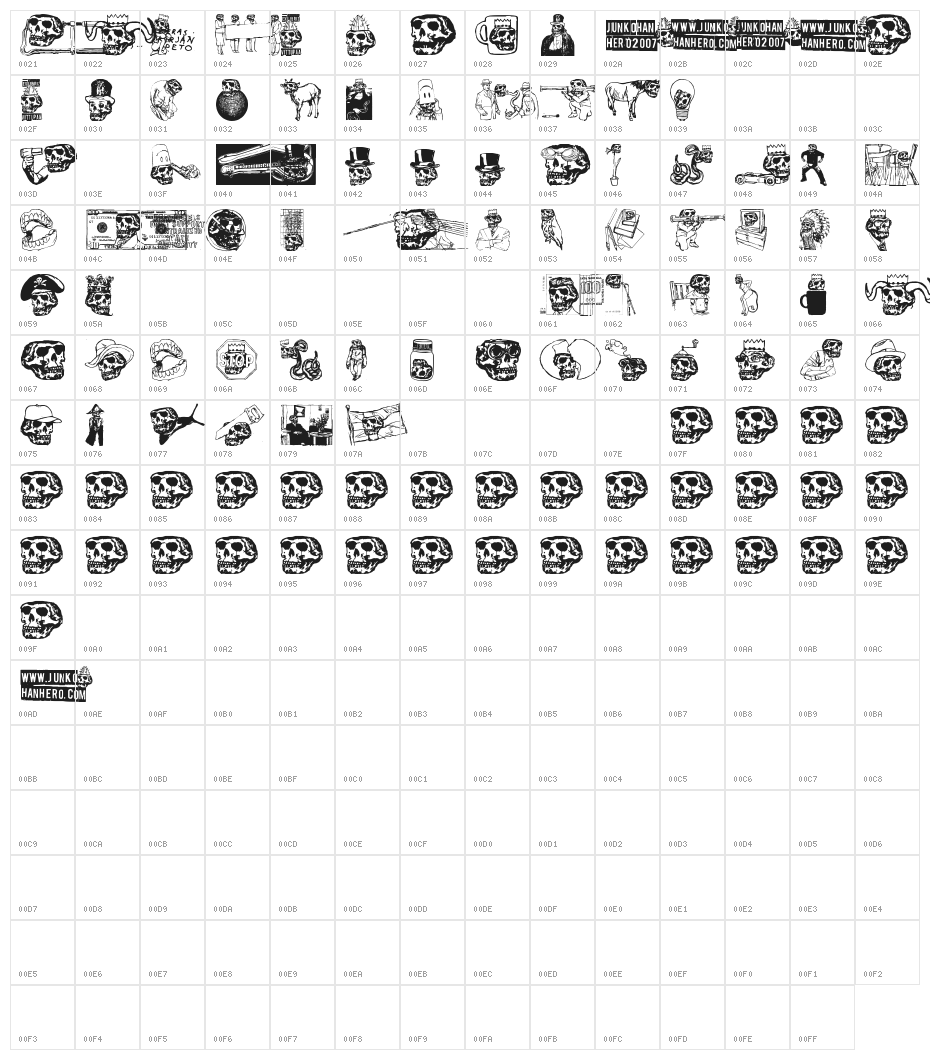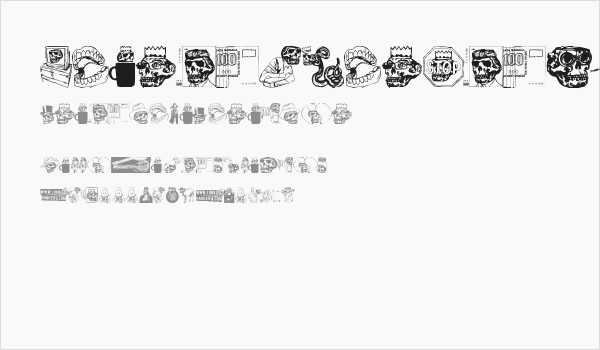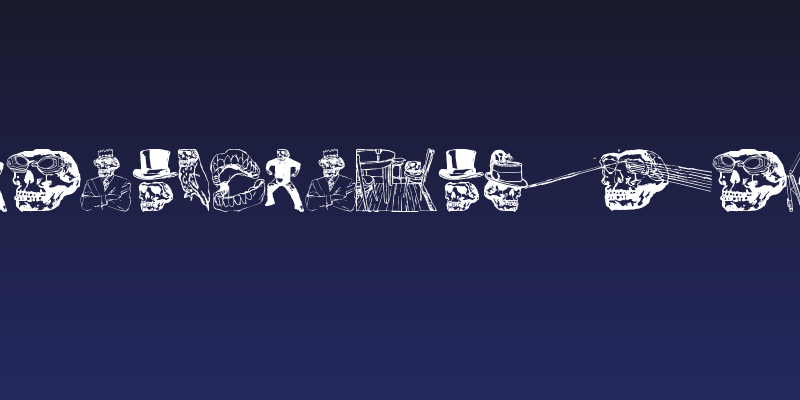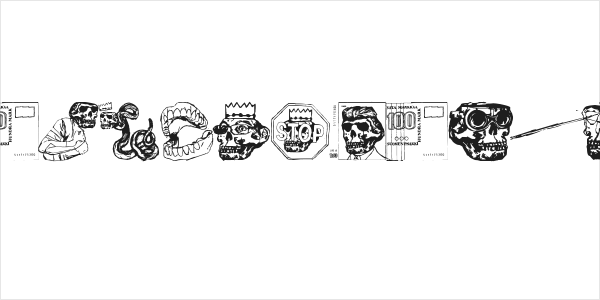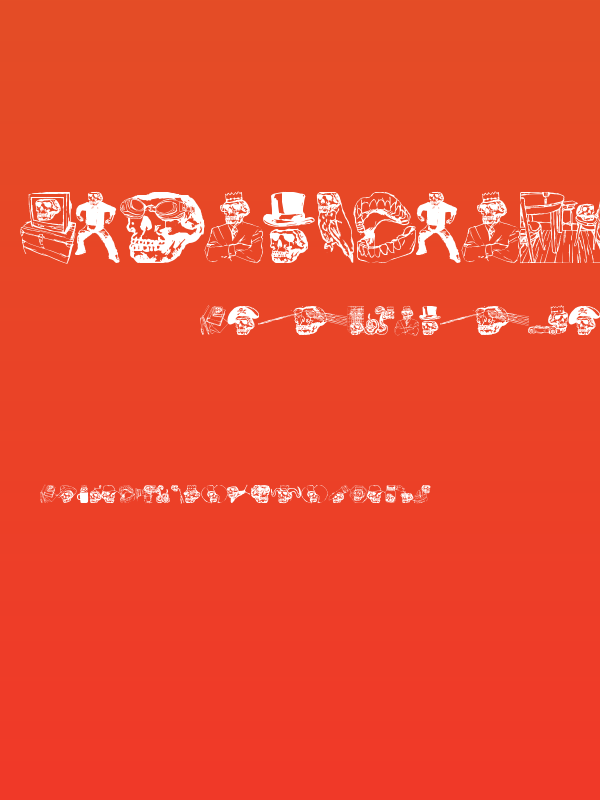
Vieraskirjan Peto Font
A highly decorative and illustrative font composed of detailed, hand-drawn images including skulls, animals, people, and various objects, each representing a different character. The style is chaotic, collage-like, and visually dense, with a strong emphasis on dark, surreal, and countercultural themes.
| Overall Style | Decorative, Surreal, Countercultural, Artistic |
| Use Case | Logos, Posters, Artistic projects, Experimental headlines |
| Proposed Projects | Album covers, underground zines, alternative event posters, art installations, experimental branding. |